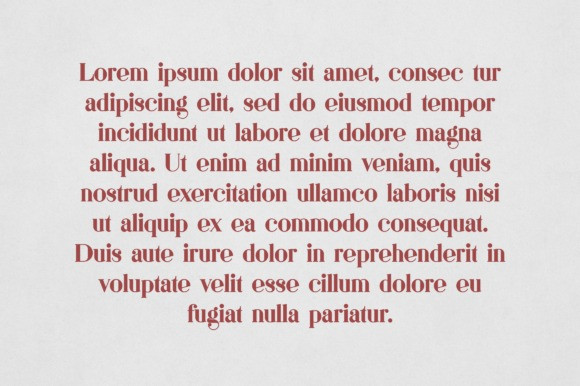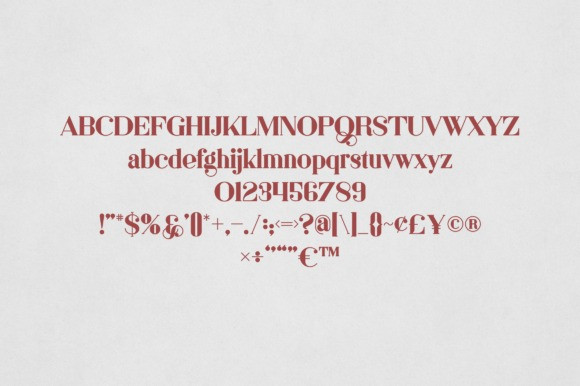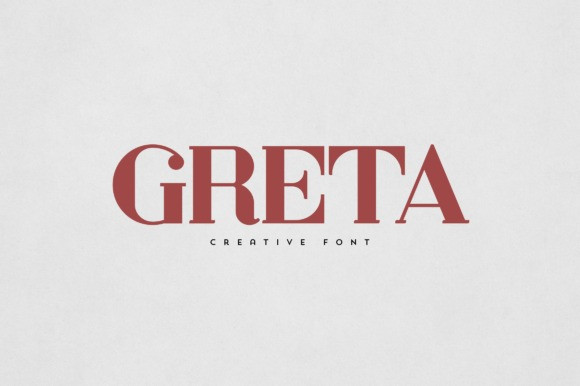
Greta Font
Greta Font is an elegant and versatile font that will make your typography truly unique! It will enchant every logo, branding, headline, or plain text!